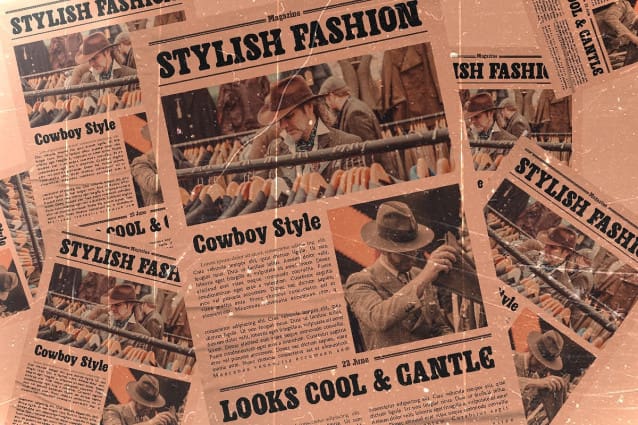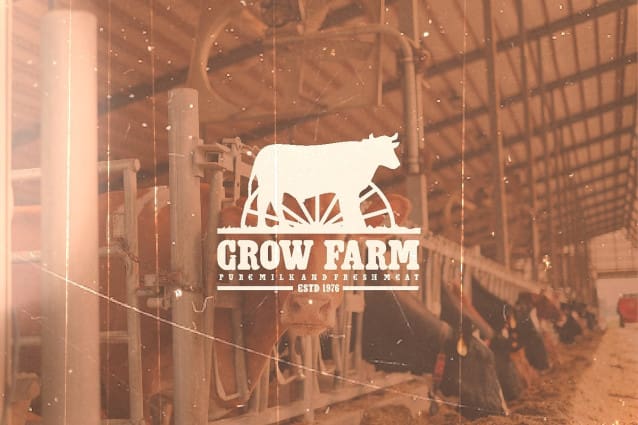
Westroon Font
Westroon Font is a western style serif font. The serif shape is thick, not stiff and has curved sides, making it look smooth.
Westroon is perfect for branding projects, logos, wedding designs, social media posts, advertisements, product packaging, product designs, labels, photography, watermarks, invitations, stationery, and any project that requires a sense of western font.